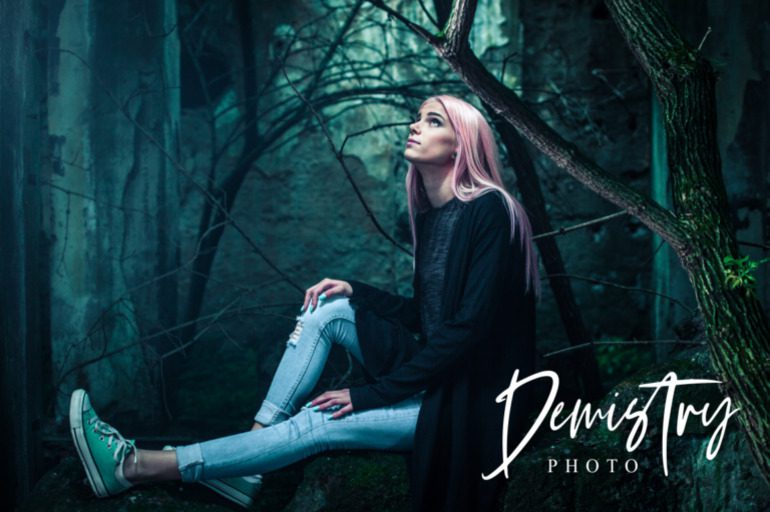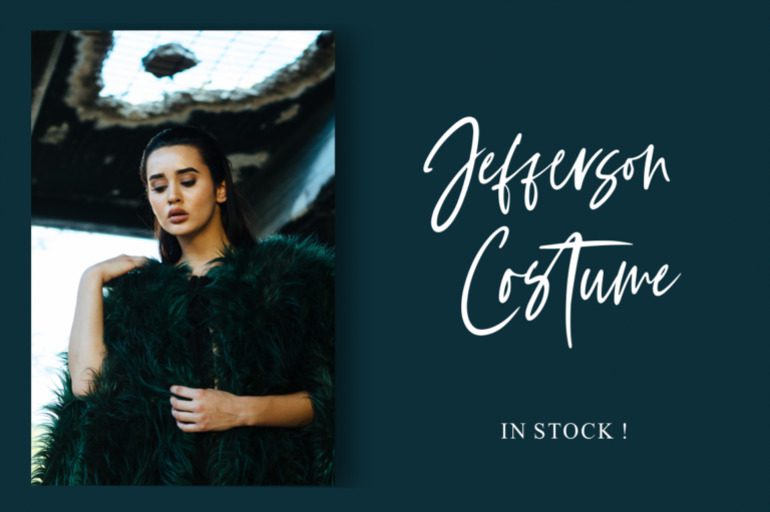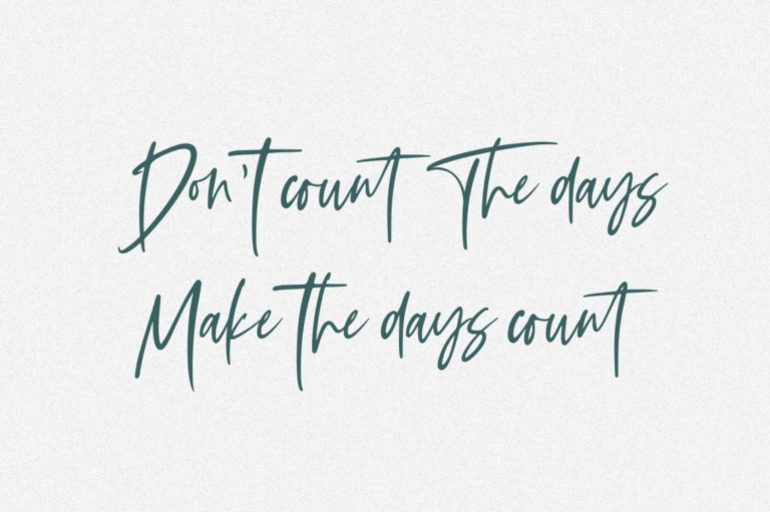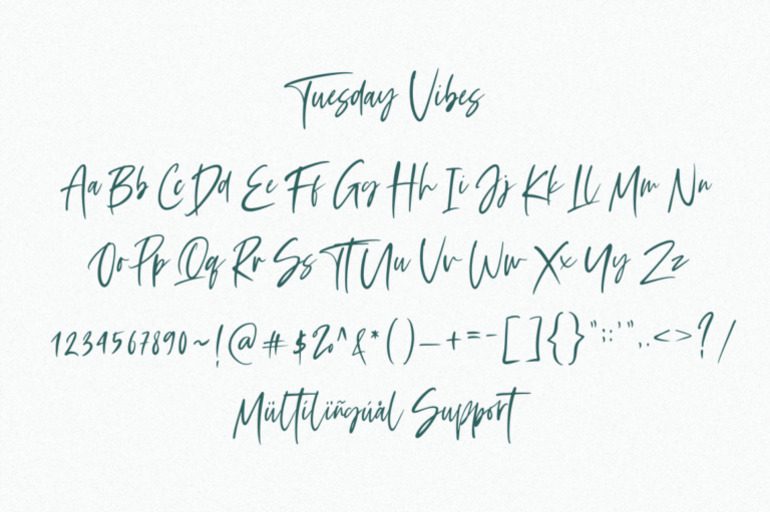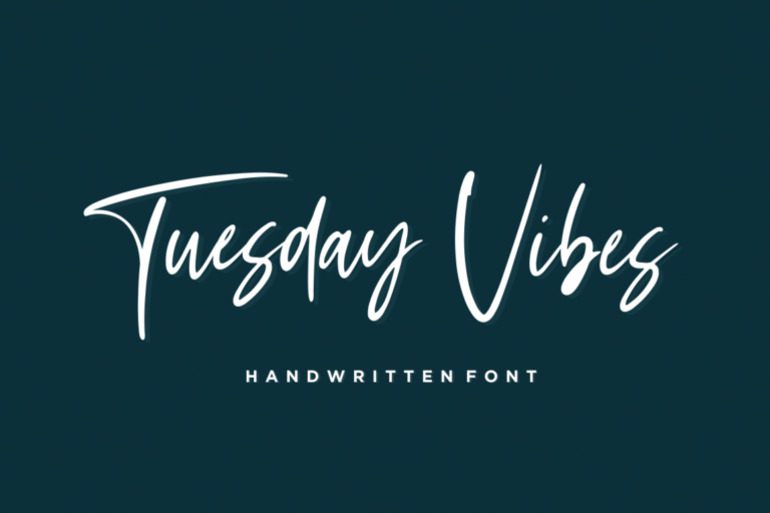
Tuesday Vibes Font
Tuesday Vibes – a new modern & fresh hand lettering font, make this font looks natural, modern, and perfect for any awesome projects. Tuesday Vibes is perfect for many different project such as logos & branding, invitation, stationery, wedding designs, social media posts, advertisements, product packaging, product designs, label, photography, watermark, special events or anything.